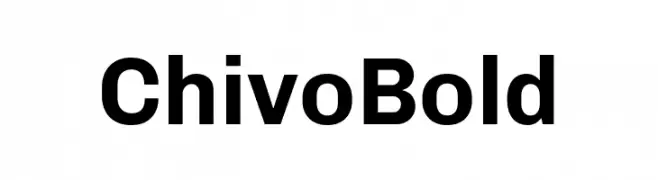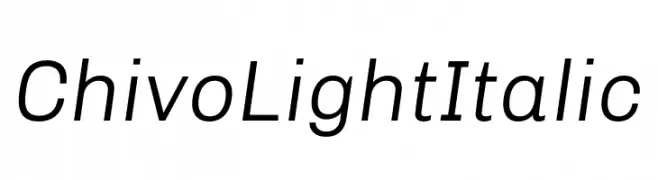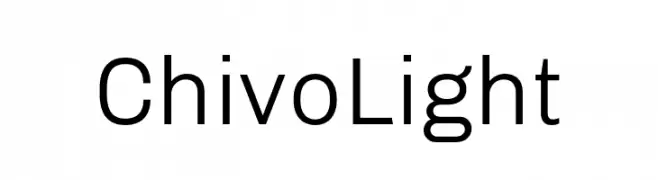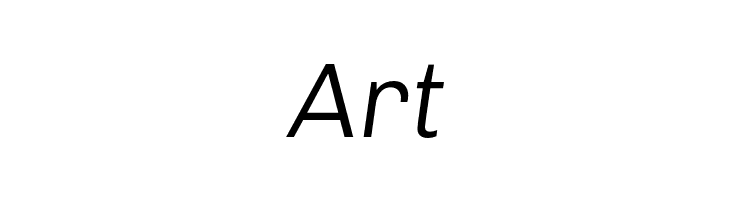
A modern, geometric sans-serif font with clean lines and balanced proportions.
A modern sans-serif font with a clean, professional look and uniform stroke widths.
A bold, modern sans-serif font with clean lines and strong presence.
A modern, extra bold sans-serif typeface with a strong and assertive presence.
A bold and italicized typeface with a modern and dynamic style.
A modern, light sans-serif font with clean lines and excellent readability.
A modern, light, italic sans-serif font with sleek and elegant characteristics.
A modern, clean sans-serif typeface with balanced proportions.
A modern, italic sans-serif font with medium weight and excellent readability.